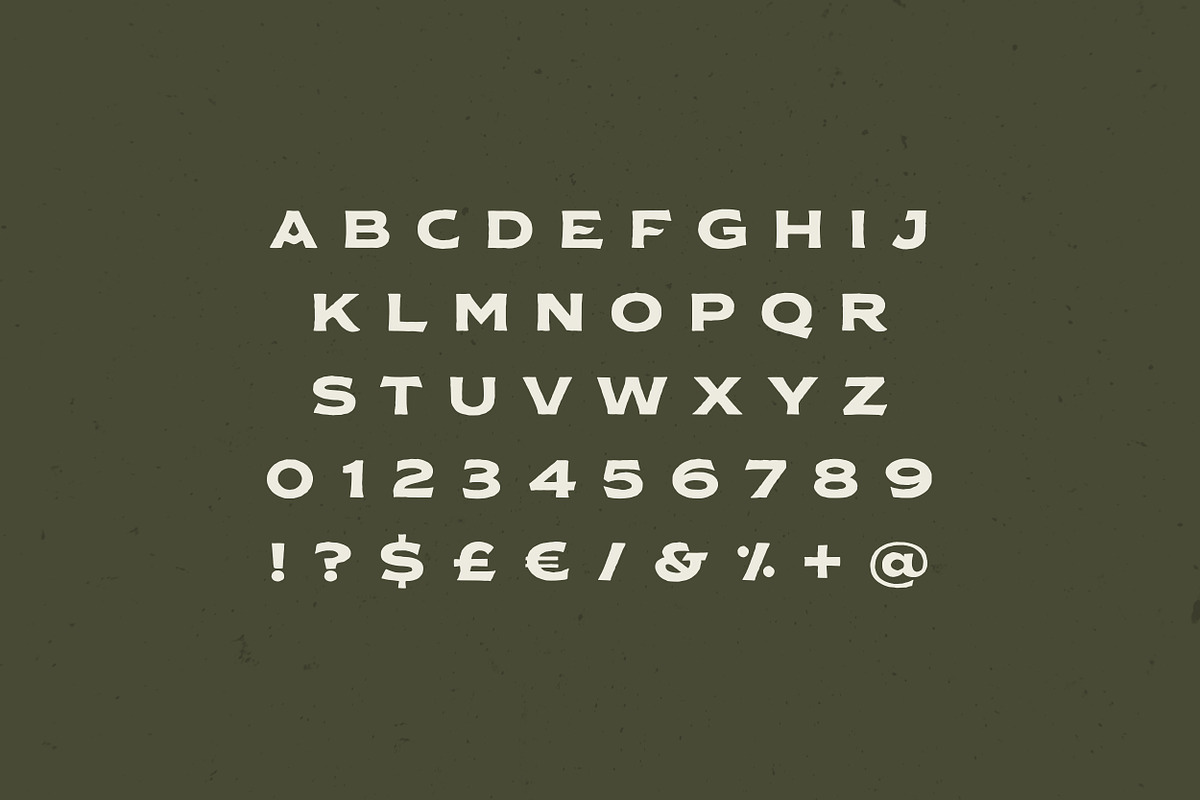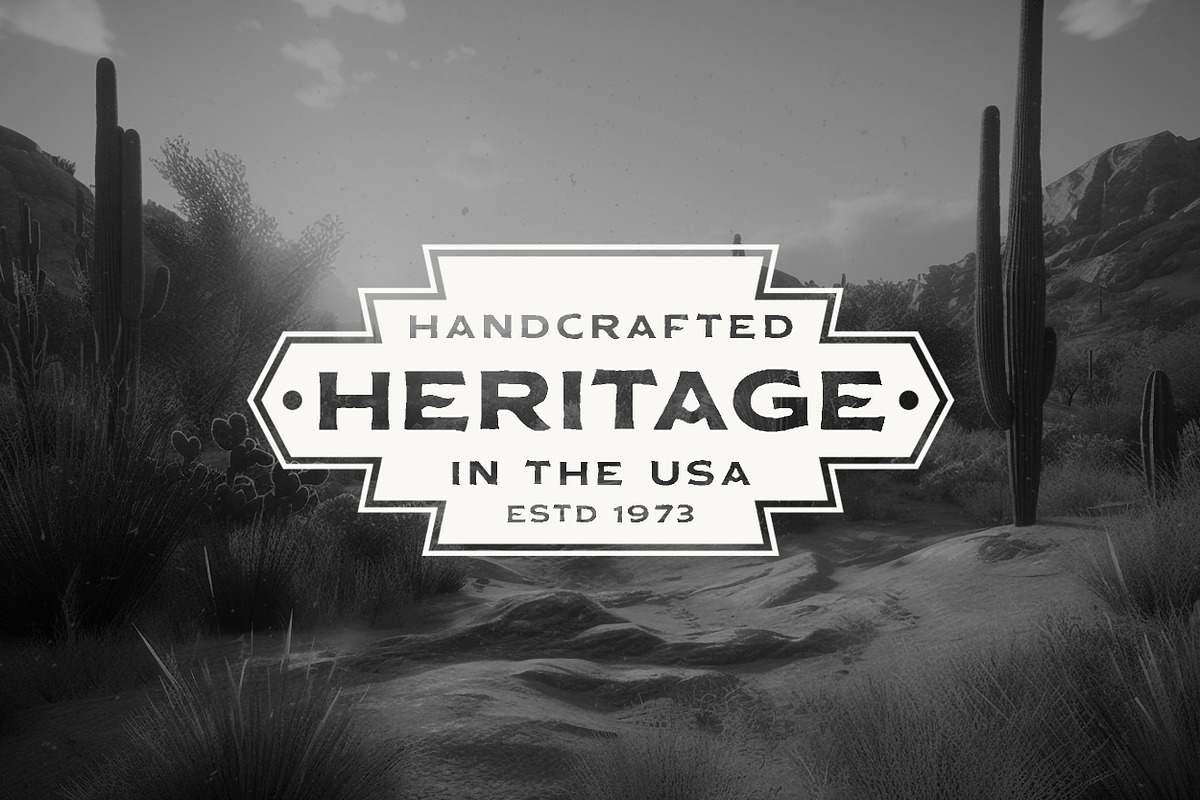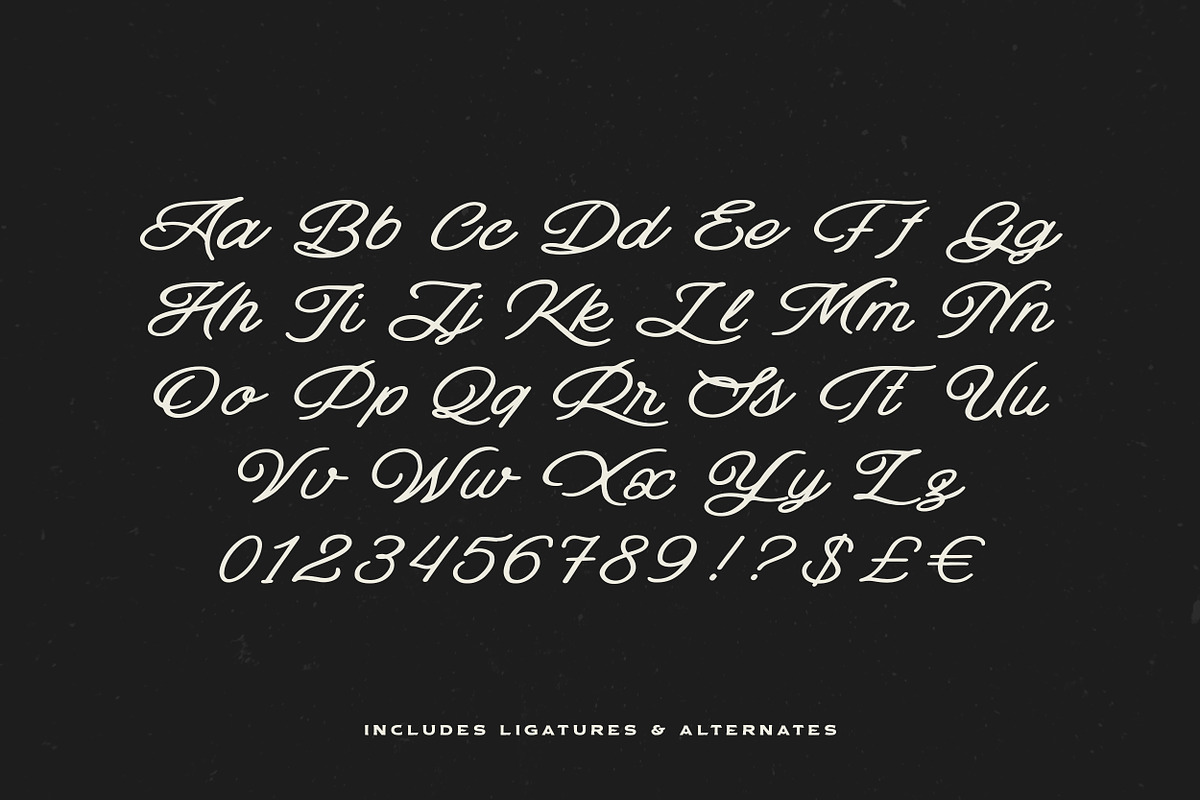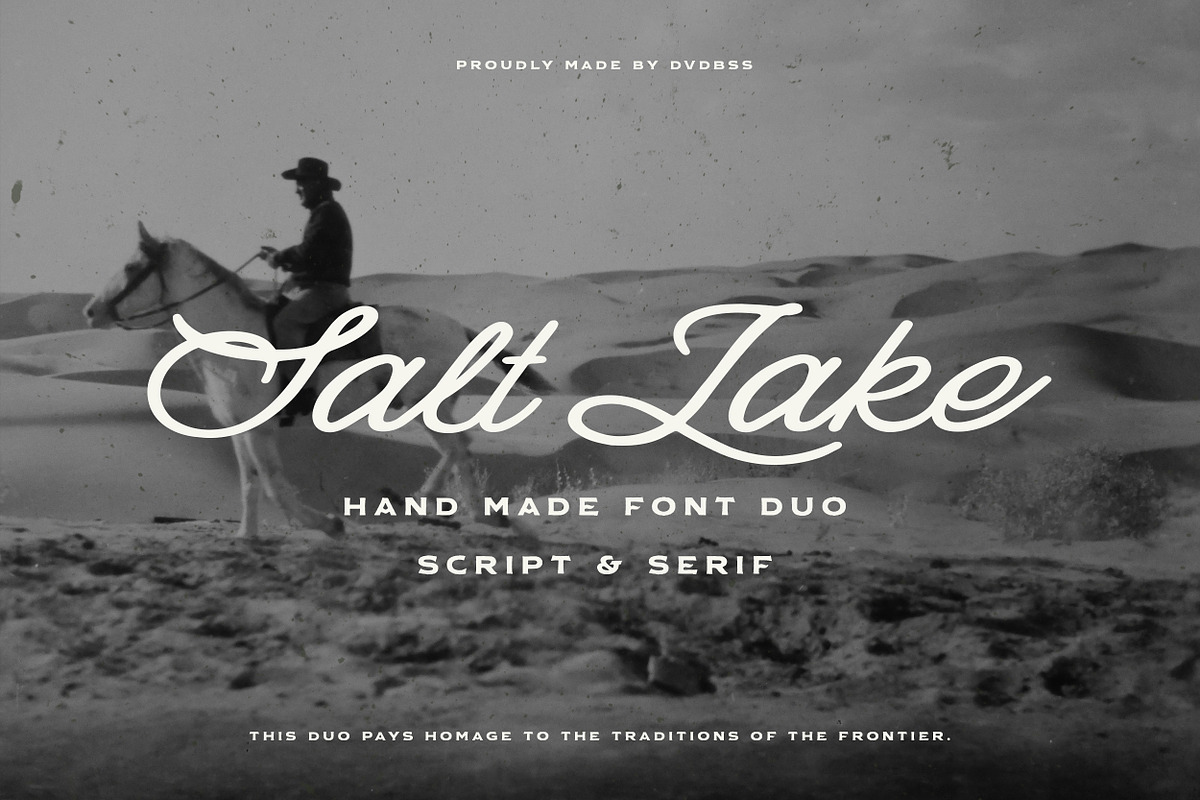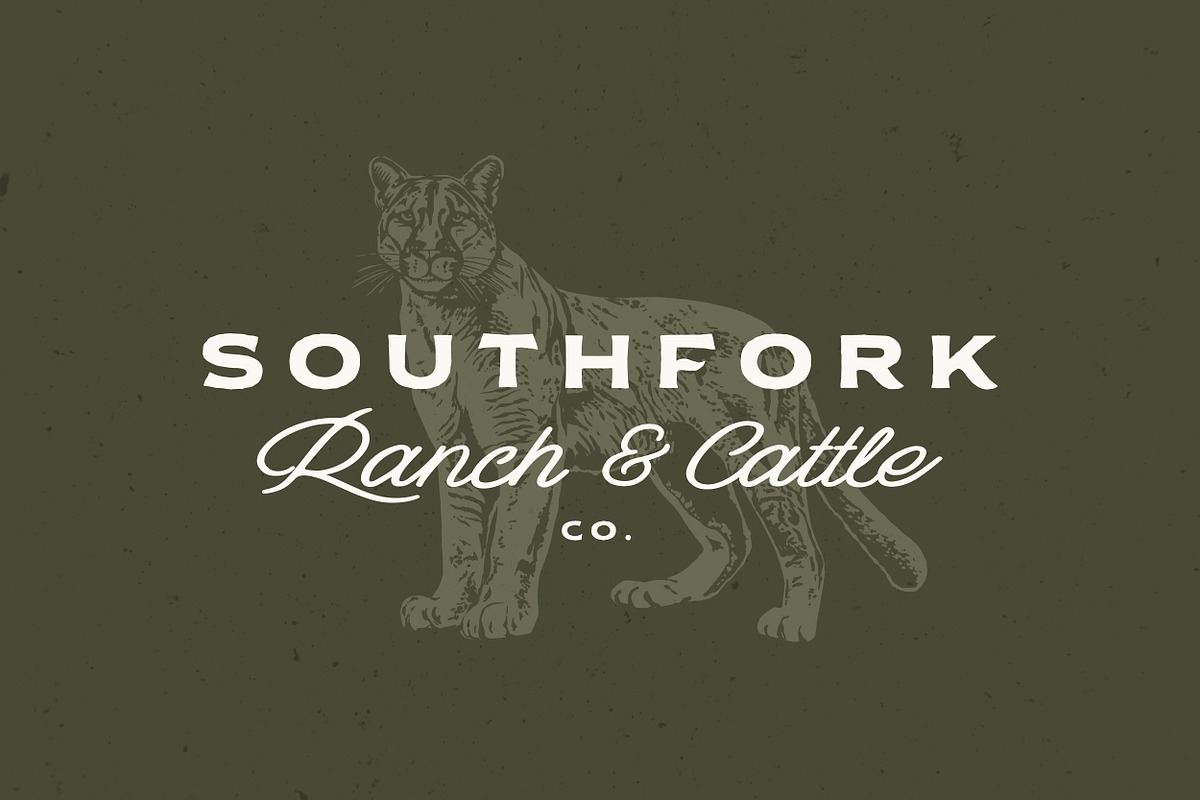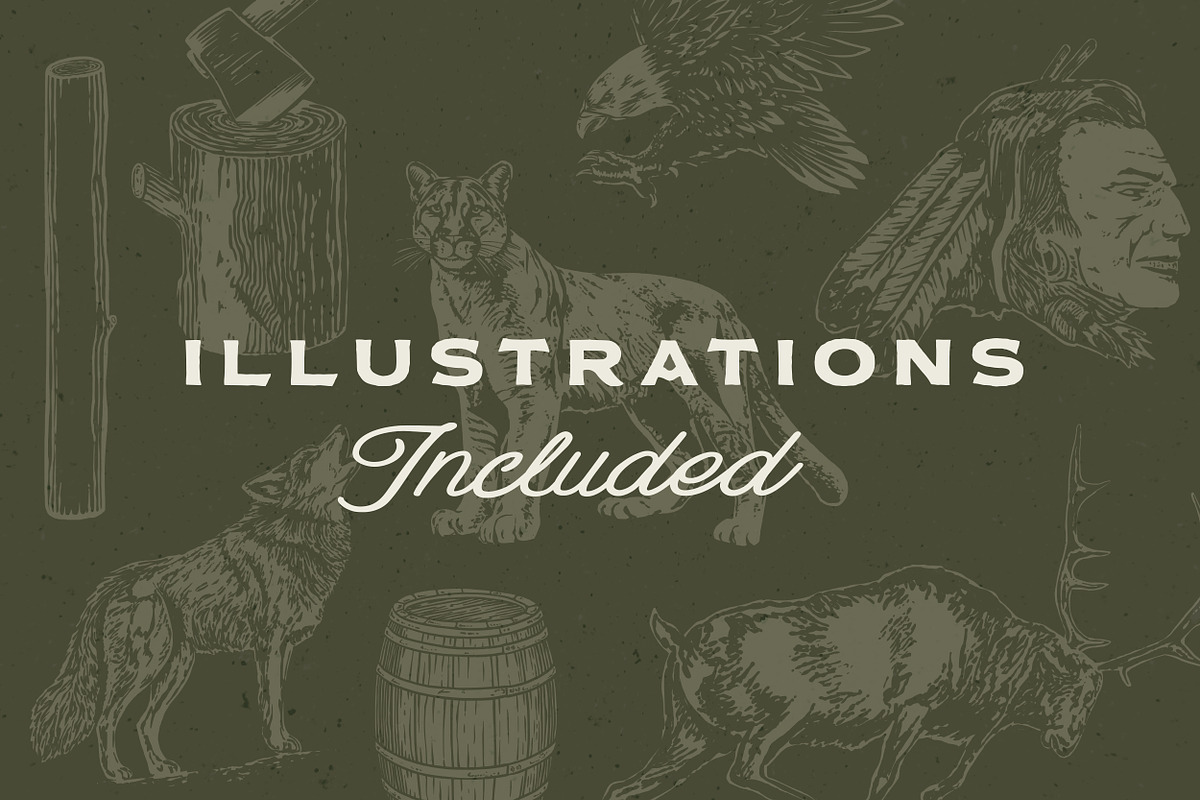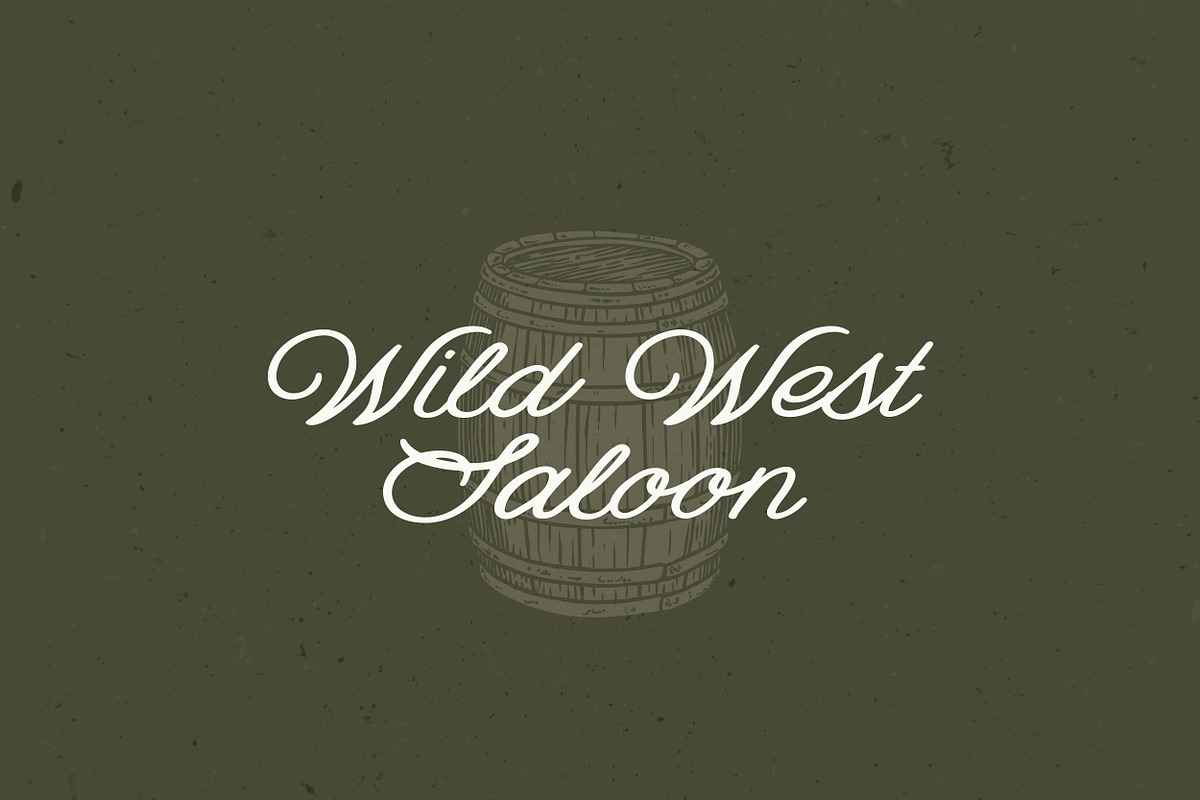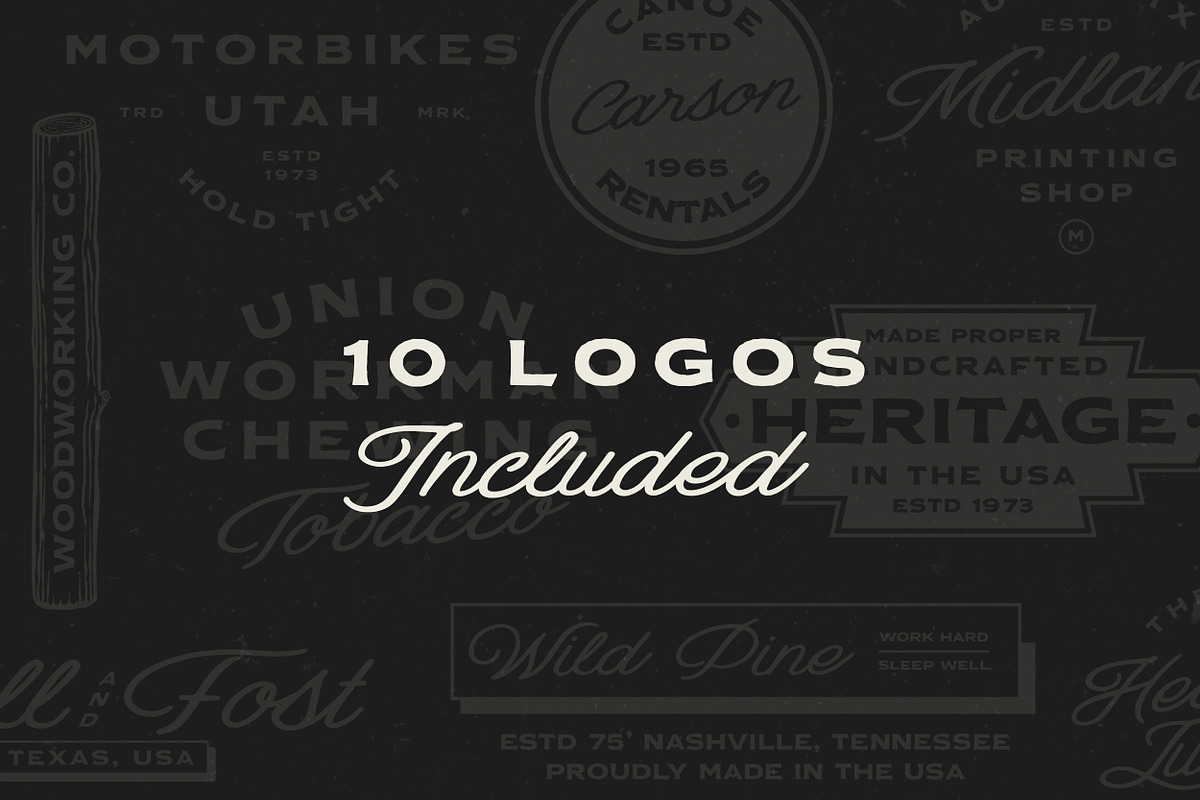
Salt Lake & Extra
Salt Lake is a blend of rustic charm and enduring style, featuring both a handmade script and a bold serif font.
Crafted for logo design, apparel branding, and more, this duo draws inspiration from the American Southwest, infusing elements of its rugged landscapes and rich cultural heritage into its design.
Complete with 10 premade logos and hand-drawn illustrations, it offers versatility and authenticity for all your design needs.